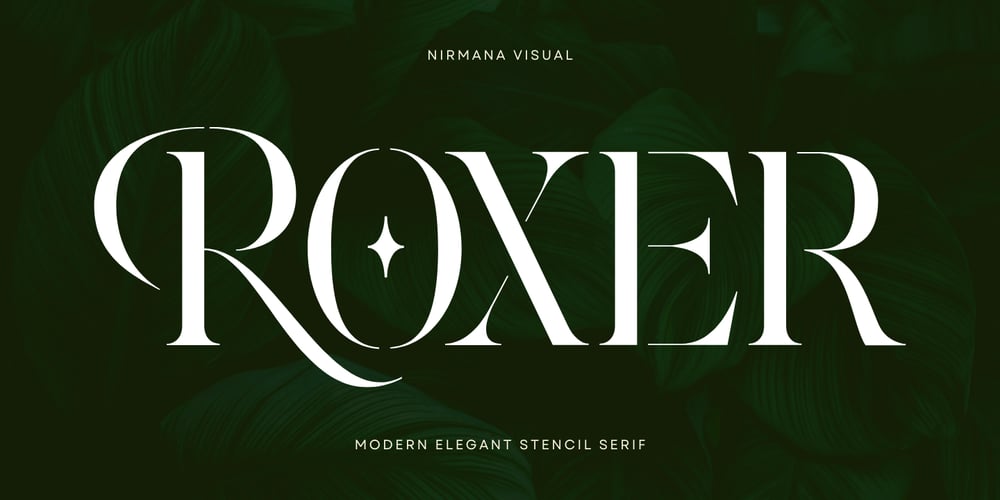
Roxer Stencil Font Family was designed by Sigit Dwipa and published by Nirmana Visual. Roxer Stencil contains 1 styles and family package options. Roxer Stencil offers beautiful typographic harmony for a diversity of design projects, including logos & branding, social media posts, advertisements & product designs.–Uppercase